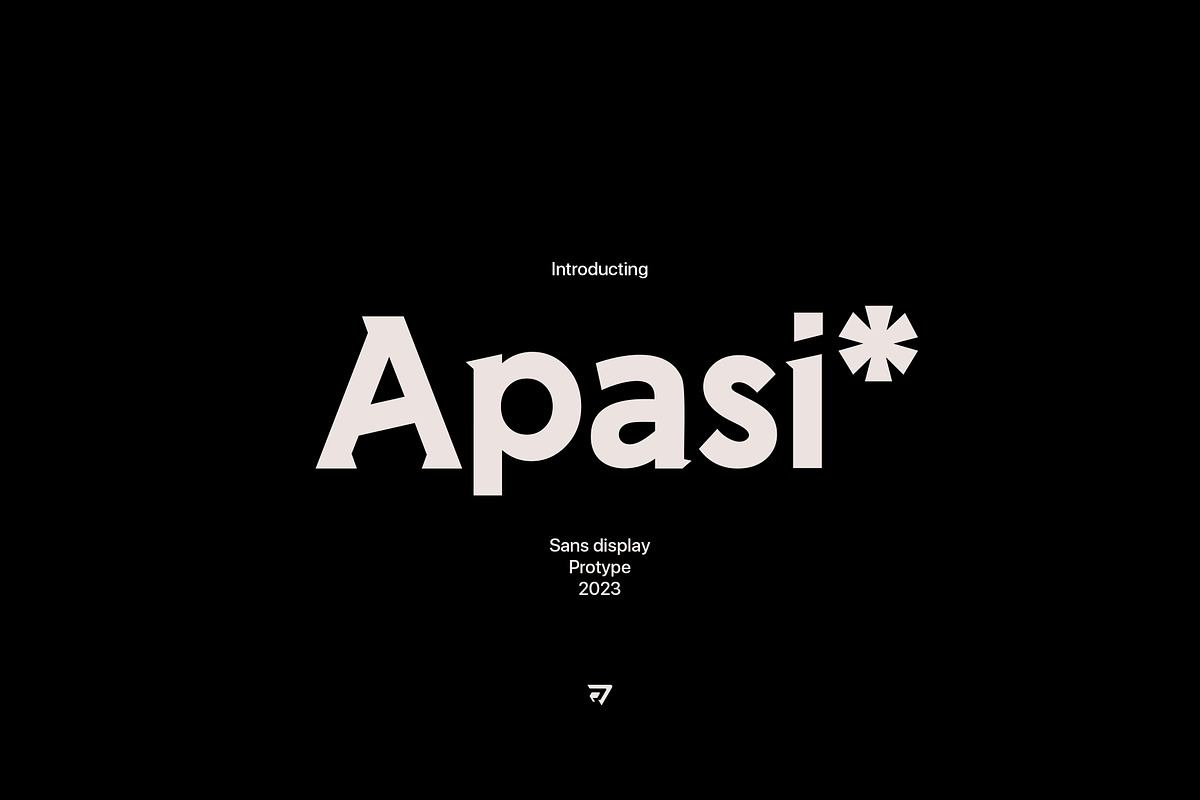
Apasi Font Free Download is a clean and versatile typeface designed for both modern and timeless designs. With its sleek lines, balanced proportions, and simple elegance, Apasi is perfect for logos, branding, editorial design, websites, and social media graphics that require a professional and polished look.
This font’s minimalistic and stylish design ensures that your typography remains legible and eye-catching, making it ideal for corporate identities, product packaging, and creative projects that need sophistication without sacrificing readability.
Designers love Apasi for its flexibility and crisp appearance across both print and digital formats. Ready to enhance your design with modern elegance? Download Apasi Font Free Download and give your typography a professional and stylish touch.